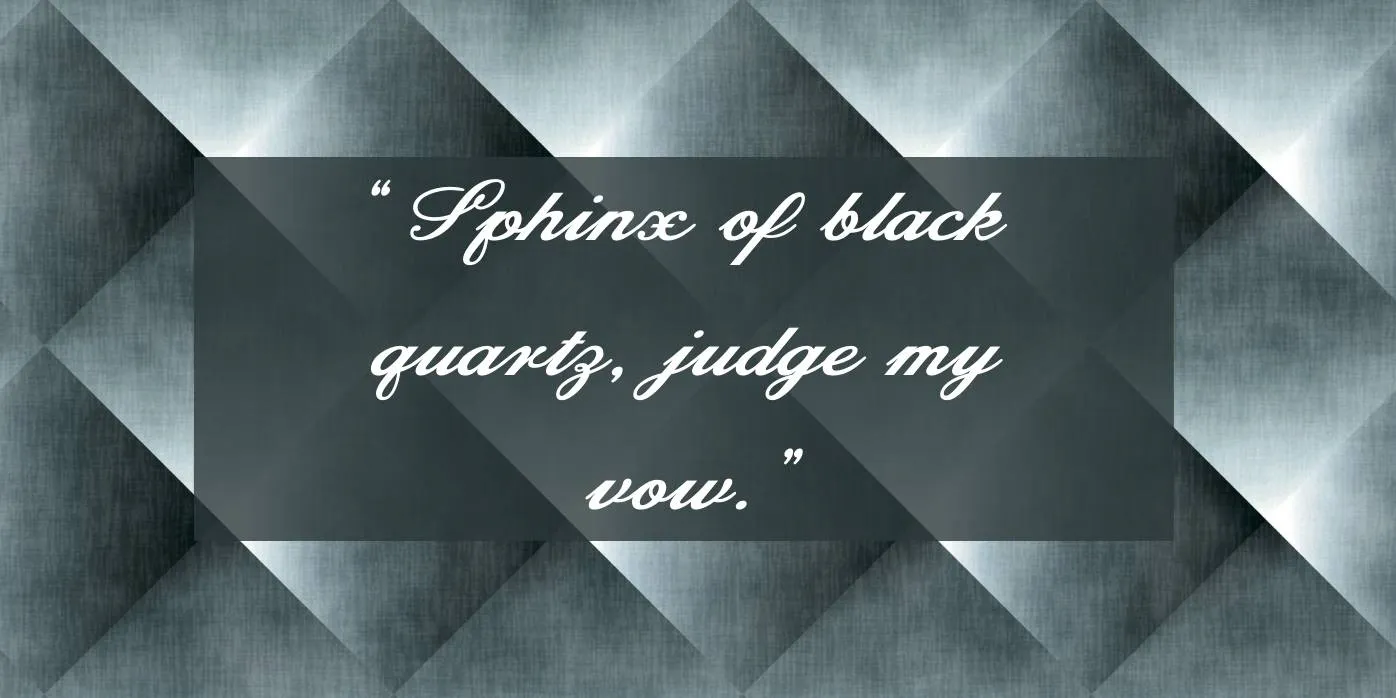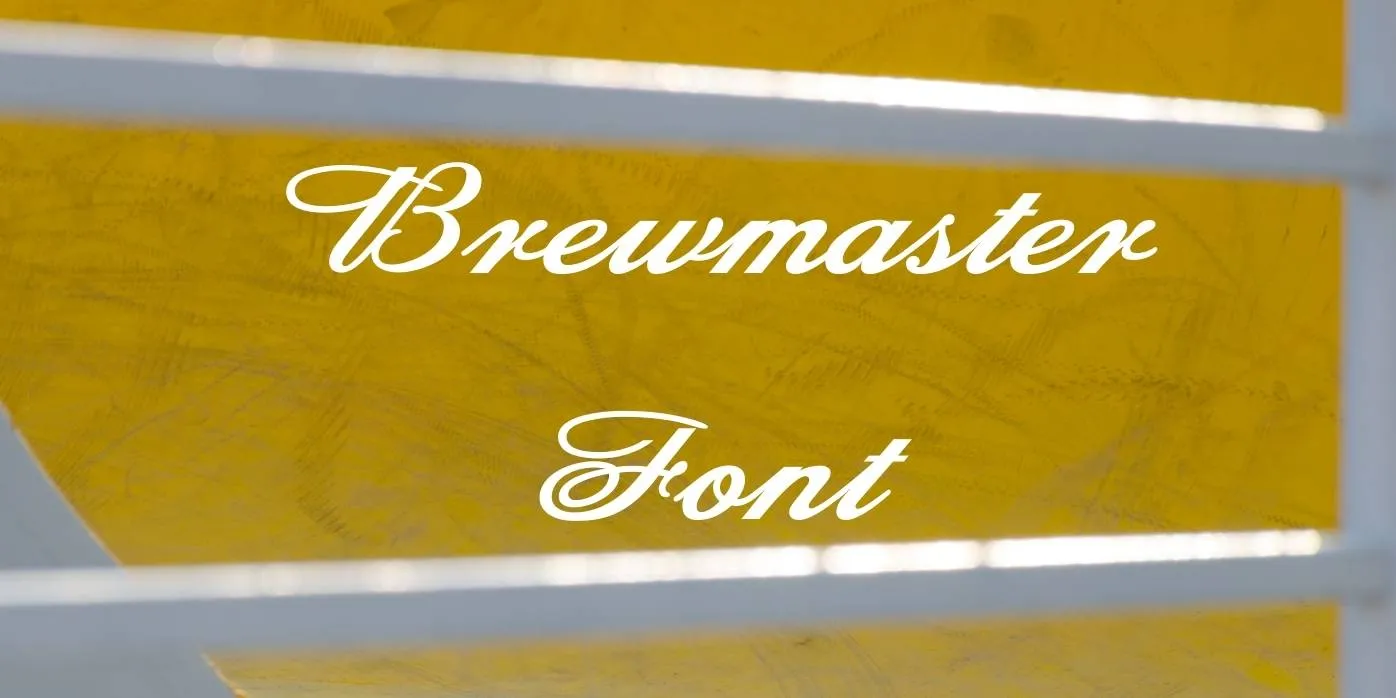
Brewmaster Font
Brewmaster Font is developed by Michael Hagemann. This awesome font belongs to the Script.  It has a strong and unique character which makes it perfect for logos and any other display purposes. The font is available in OTF format. It features a set of ligatures that give your text a more natural look.
The font also comes with a set of ornaments that you can use to add some extra flair to your designs. You can also pick this cozy typeface for other programs like Adobe Photoshop, Canva, and others. Nosegrind Font is one of the most similar to this typeface. This classy font is perfect for any type of project that you might be working on, and they are sure to make your work look the best.